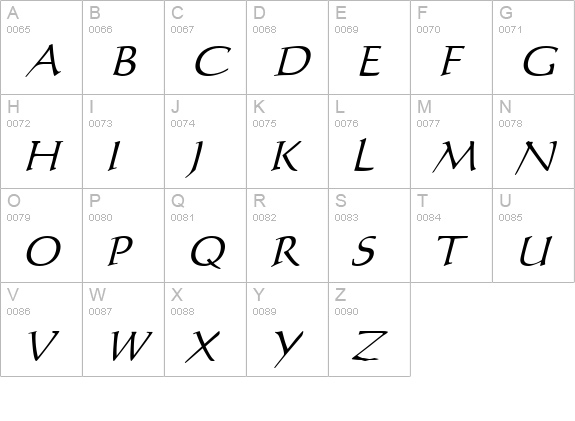
Calli 109 Italic is a distinctive, italic variant in the Calli typeface family \xE2\x80\x94 well suited to design and typography projects.
Calli 109 Italic is a beautifully crafted font that exudes elegance and sophistication. With its delicate curves and graceful lines, this font is perfect for adding a touch of sophistication to any project. Whether you're designing a wedding invitation, creating a logo, or working on a branding project, Calli 109 Italic is sure to impress. The best part? Calli 109 Italic is completely free to download at FontsMarket.com. This means you can enjoy all the beauty and versatility of this font without having to spend a dime. Don't miss out on this amazing opportunity to enhance your designs with the timeless charm of Calli 109 Italic. Download it today and let your creativity soar!